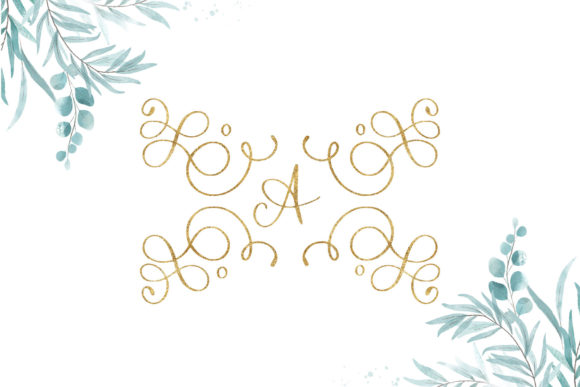
Welcome to the world of elegance and sophistication, where letters dance harmoniously, creating an aura of timeless charm – we present to you the Authentic Monogram Font, a decorative masterpiece that promises to transform your creative endeavors into visual symphonies.
Dive into a realm where typography meets art. This font is not just a collection of letters; it's an exquisite tapestry of flowing lines, delicate curves, and intricate details that will captivate your senses and ignite your imagination.
With its undeniable romantic appeal, the Authentic Monogram Font effortlessly elevates your love letters, wedding invitations, and design projects to ethereal heights. Its dainty strokes and lovely appearance evoke a sense of nostalgia and romance, making it the perfect choice for expressing your heartfelt emotions.
Imagine your wedding invitation adorned with the Authentic Monogram Font's graceful characters, each letter like a delicate brushstroke, painting a picture of love and commitment. Or envision your love letters, each word flowing seamlessly into the next, conveying your deepest affections with an elegance that speaks louder than words.
The possibilities are endless, for the Authentic Monogram Font is not limited to the realm of romance. Its versatility extends to a myriad of creative projects, from elegant business cards and captivating logos to eye-catching social media posts and stunning website designs.
With its inherent charm and captivating presence, this font captivates audiences, leaving a lasting impression that lingers in their minds. Its timeless beauty transcends trends, ensuring that your creations remain relevant and captivating for years to come.
If you seek a font that embodies grace, sophistication, and a touch of whimsy, the Authentic Monogram Font is your perfect match. Its intricate details and romantic aura will add a touch of magic to your creative projects, leaving your audience spellbound.
Don't settle for ordinary fonts; embrace the extraordinary with the Authentic Monogram Font. Let your creativity soar, let your words dance, and experience the transformative power of this typographic masterpiece.